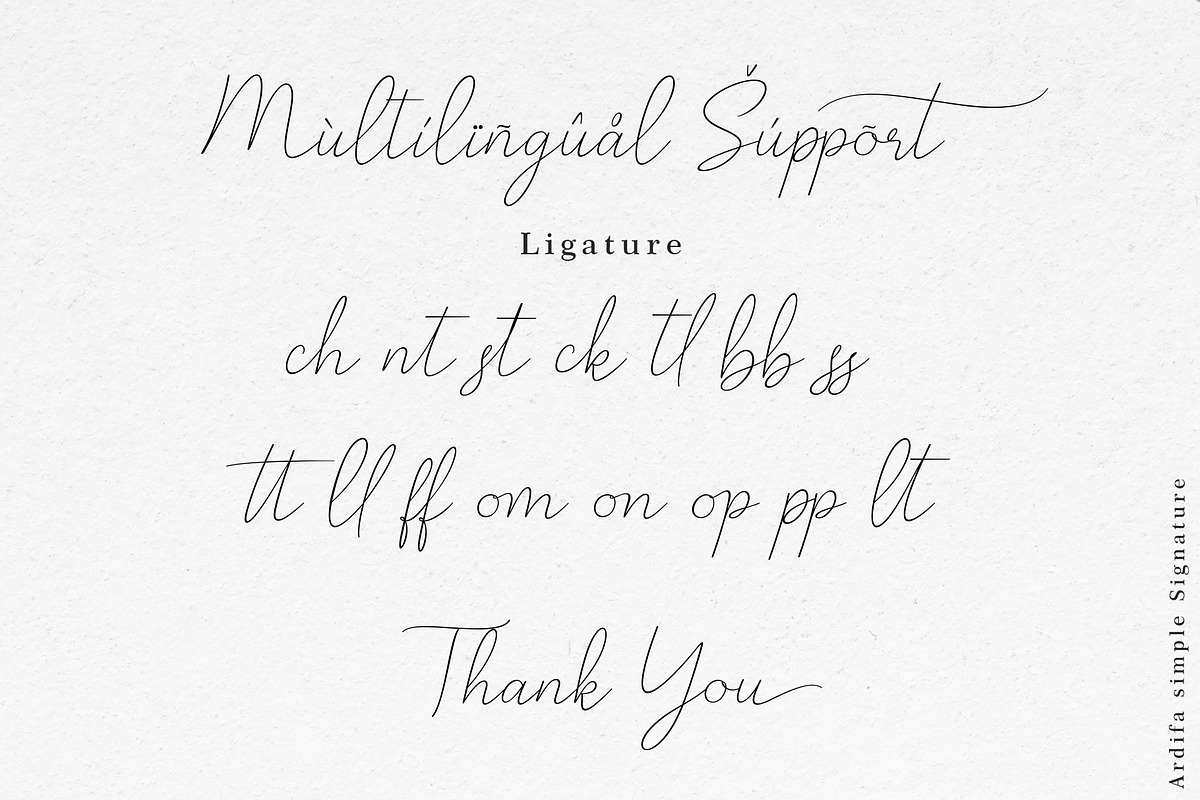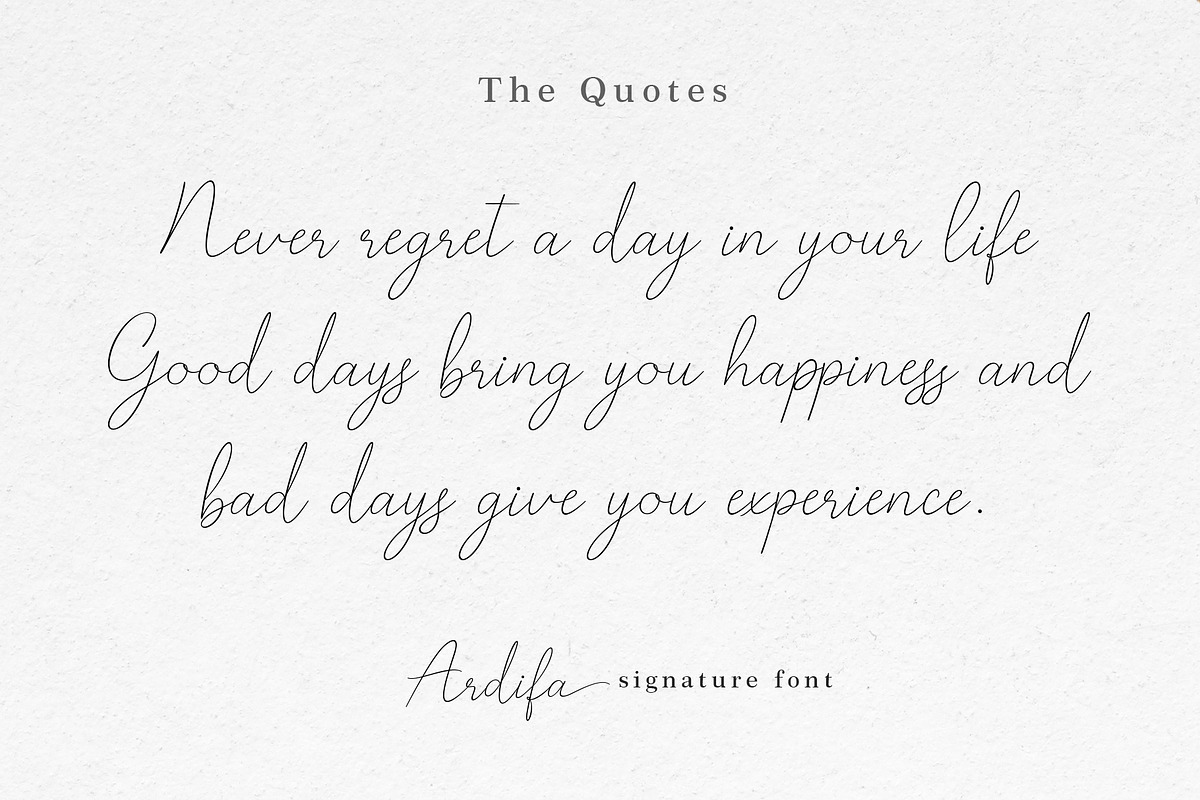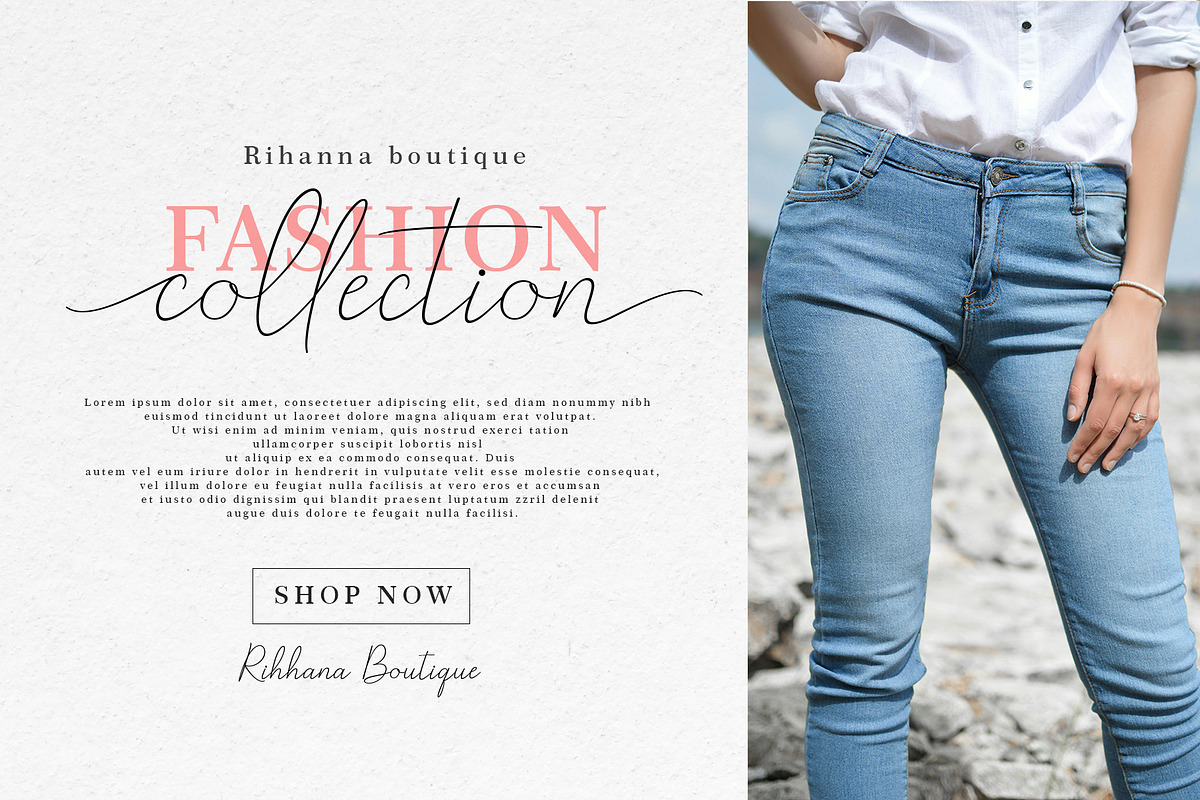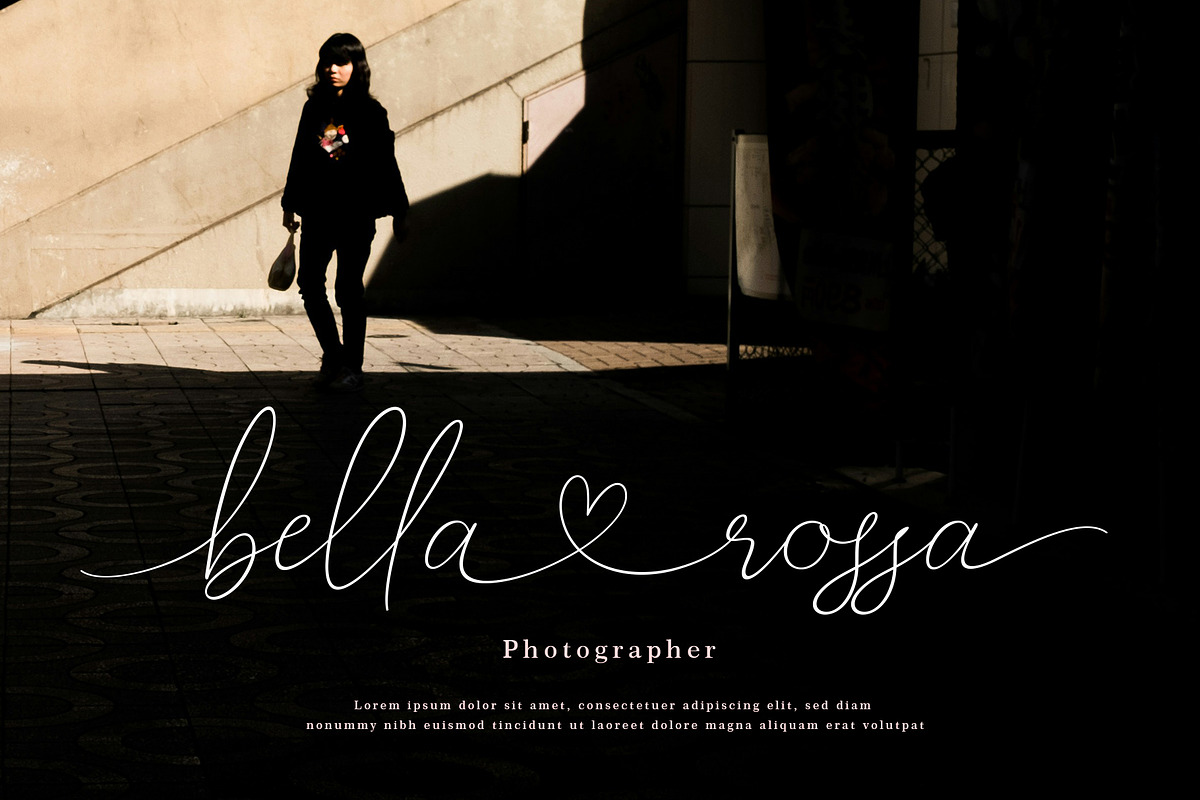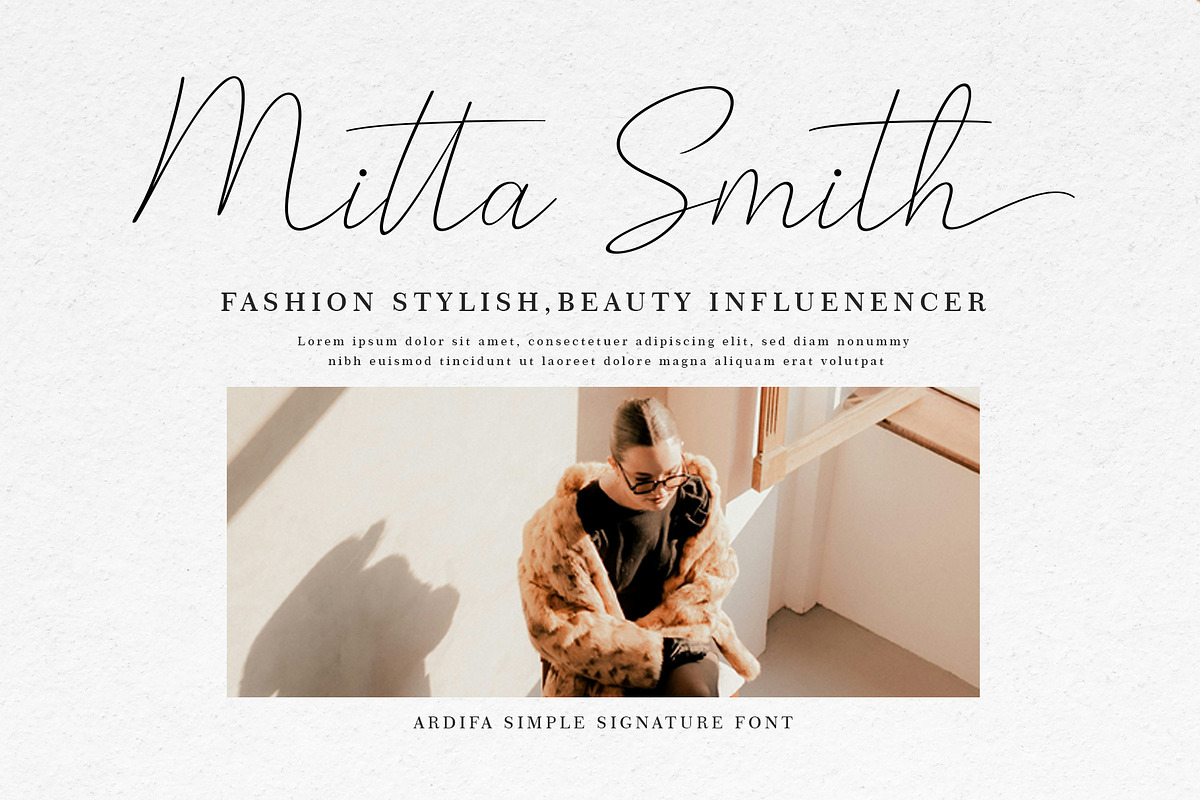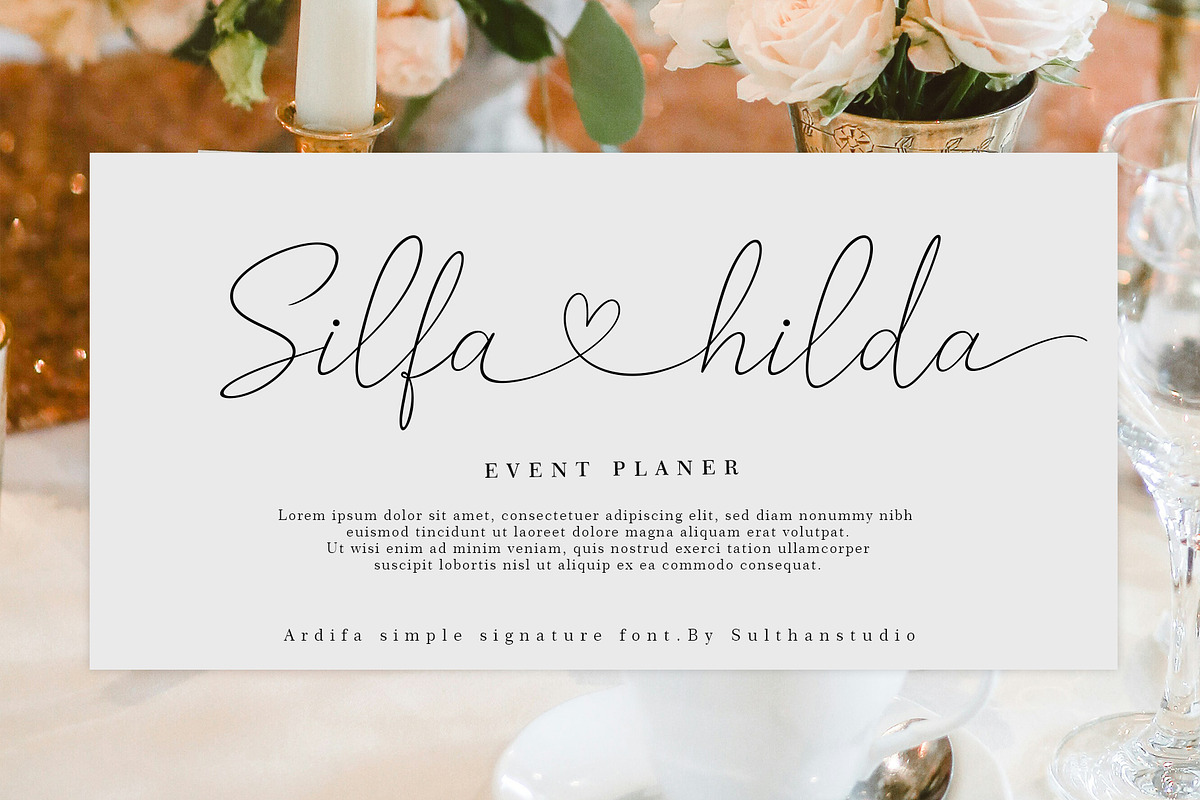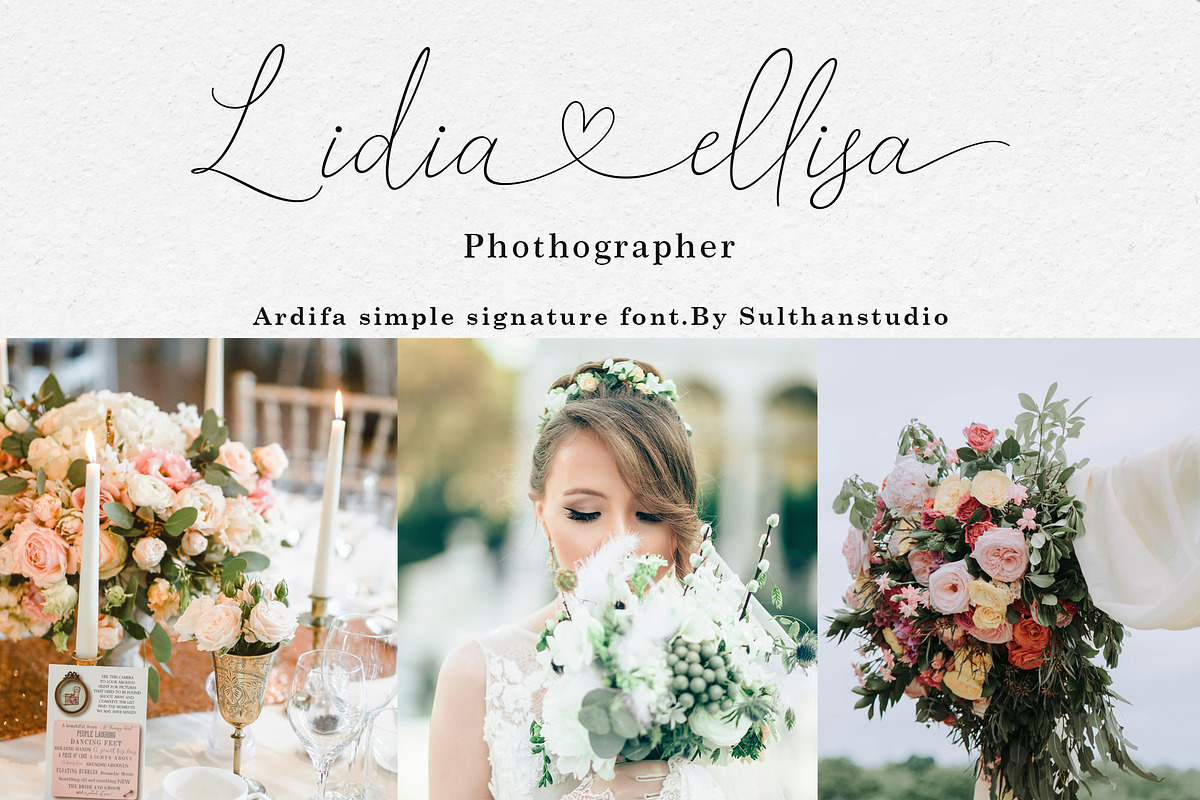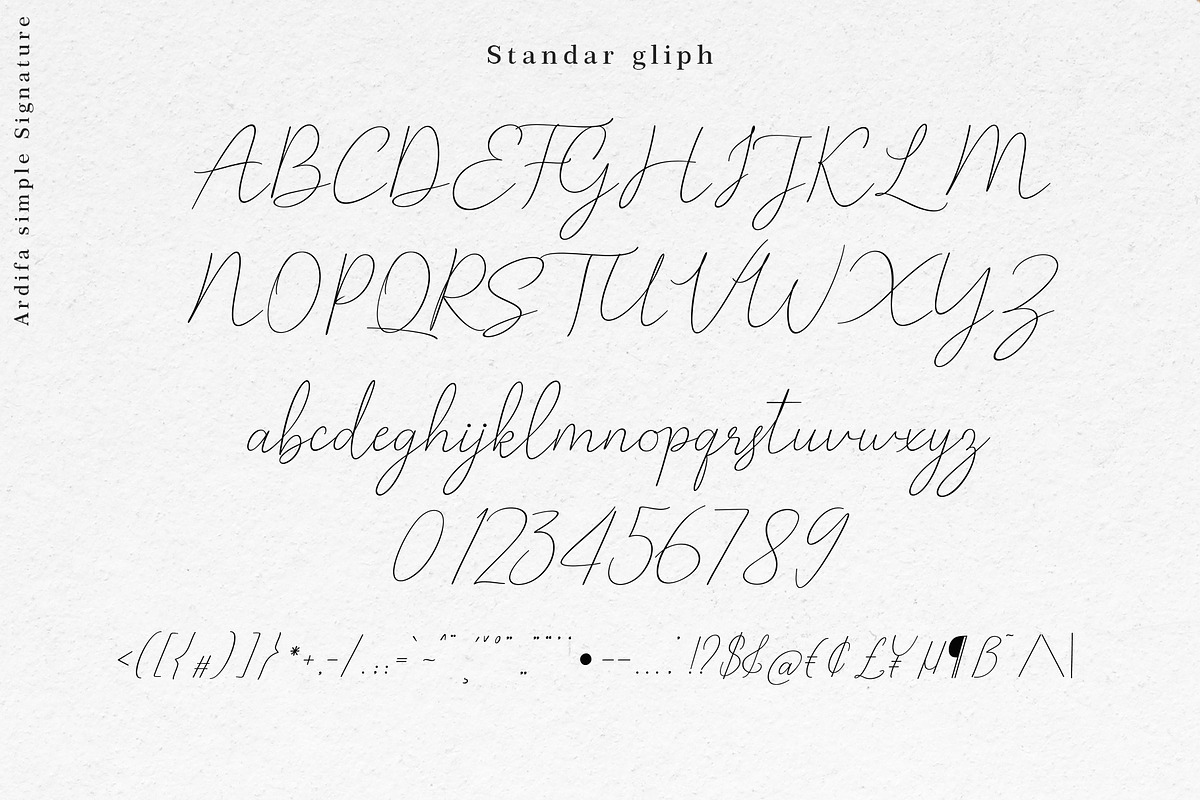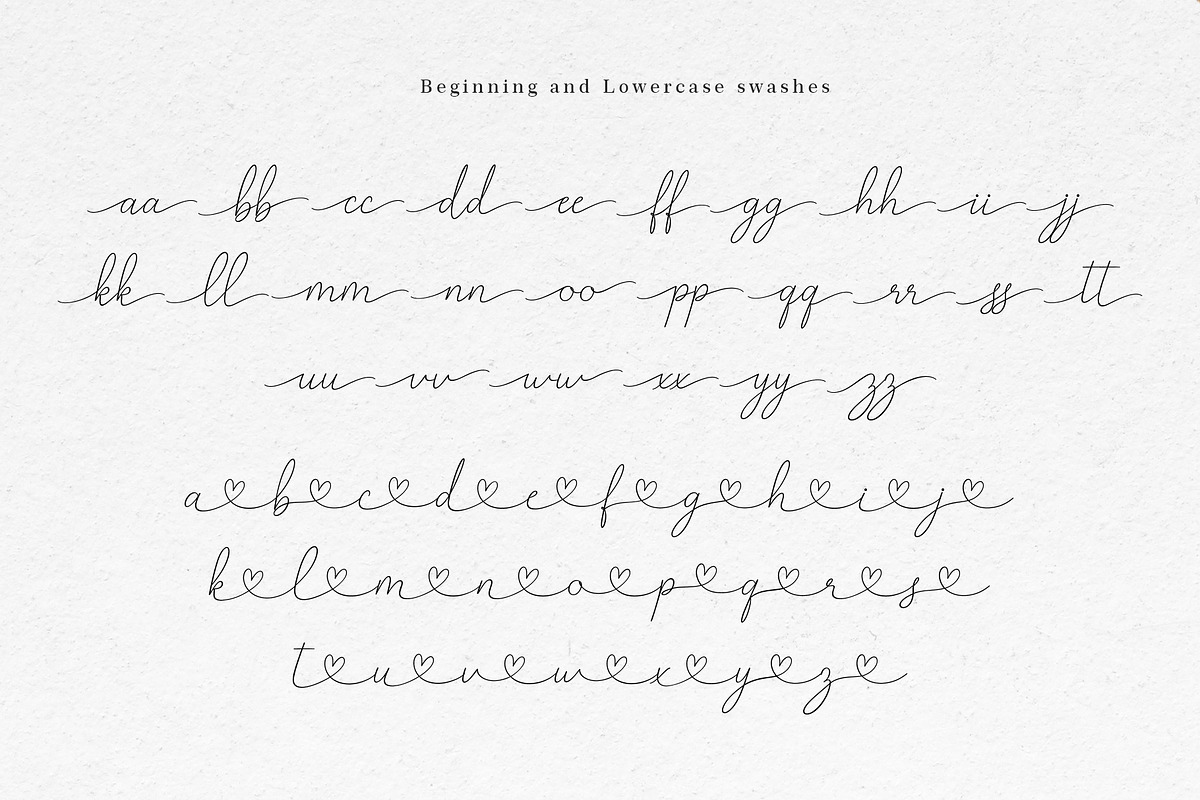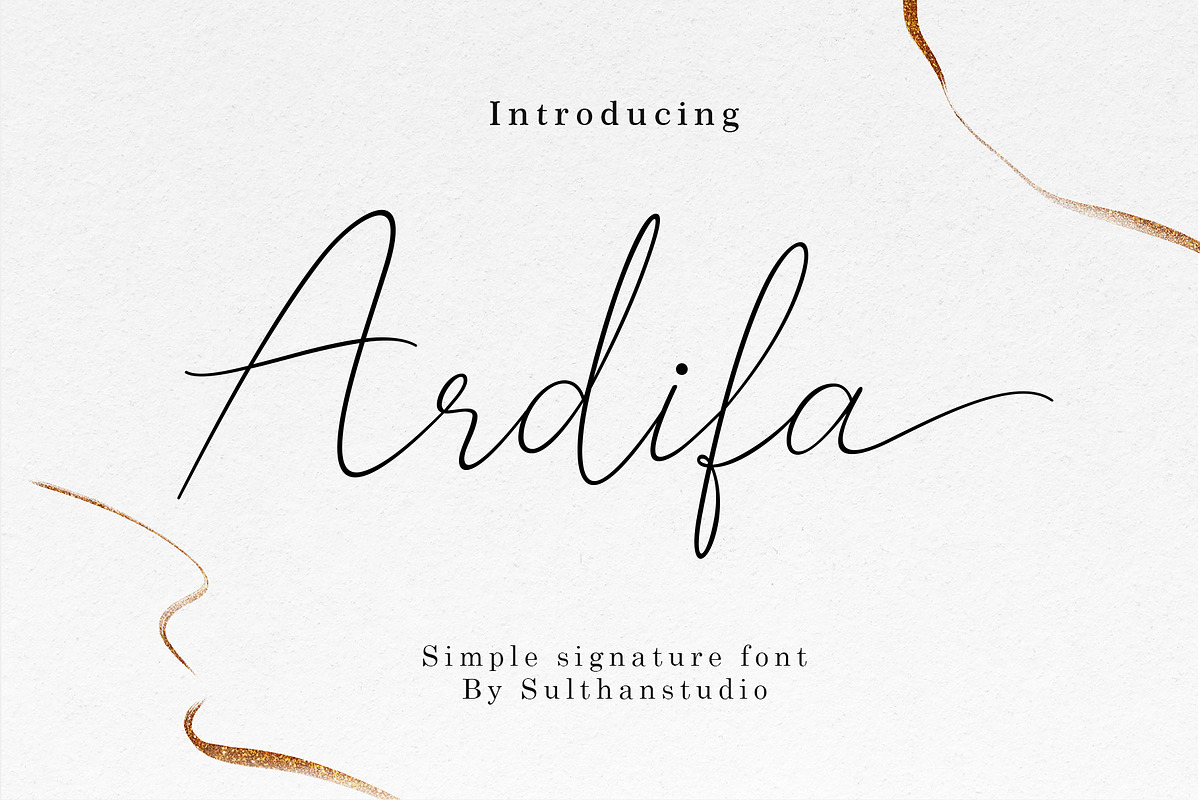
Ardifa
Ardifa is a simple signature font with a fresh, modern and natural handwriting style that is very easy to read because it also resembles calligraphy letters. The Ardifa font will create a charming touch and color for every job such as branding, logos, signatures, quotes, social media and more.